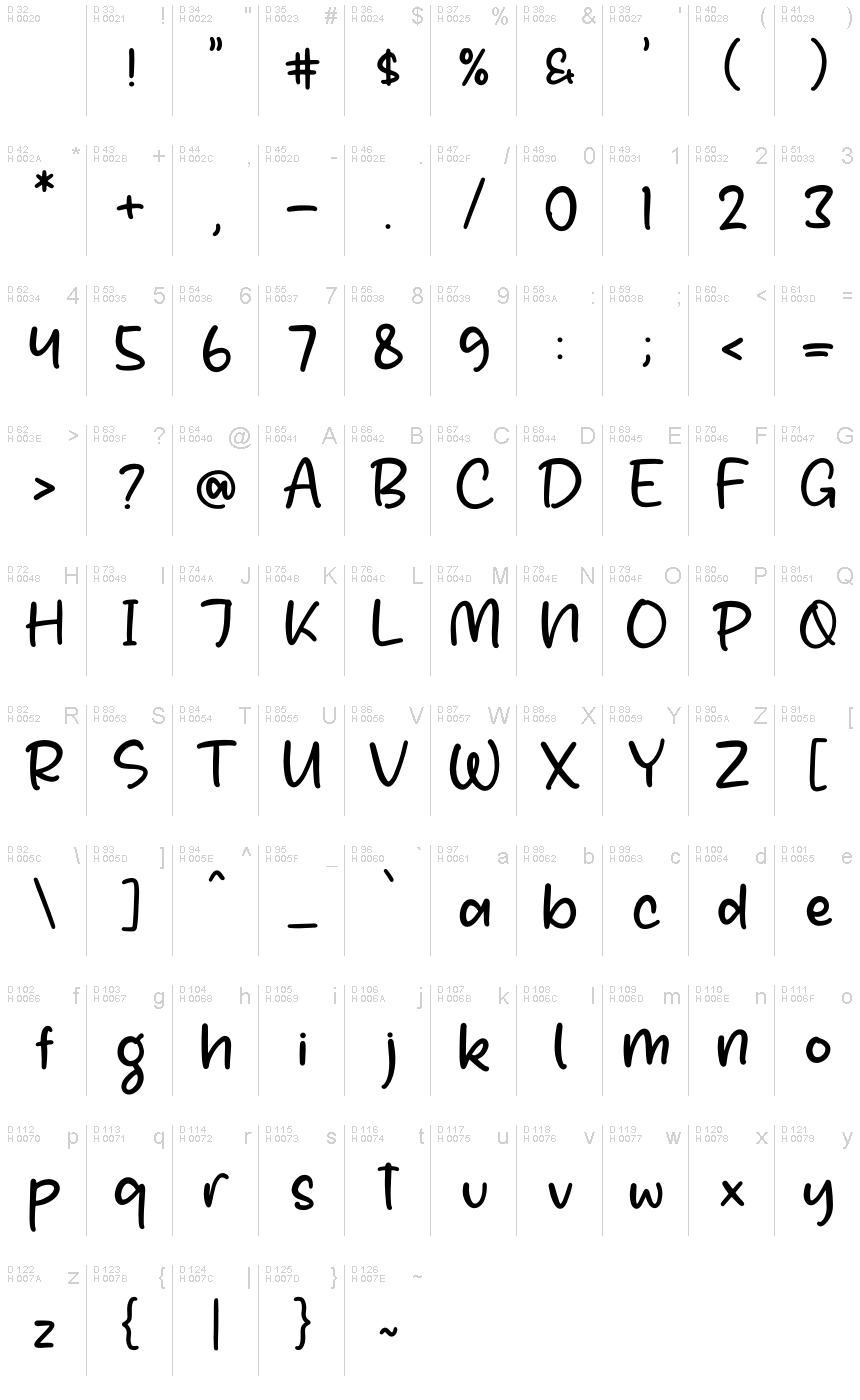
Rinkle Belle
Rinkle Belle embodies the charm of a personal touch with its handwritten style, crafted by the creative minds at Perspectype Studio and presented by Letterena.com. This font dances with a casual elegance, featuring playful curves and dynamic strokes that mimic the nuances of human penmanship. Its characters display an inviting warmth, making it ideal for designs that aim to convey intimacy and approachability.
The versatility of Rinkle Belle shines in its ability to add a handcrafted essence to various projects. It's perfectly suited for invitations, greeting cards, branding materials, and any context where a personal, bespoke feel is desired. With Rinkle Belle, designers can infuse their work with a sense of authenticity that resonates with audiences seeking the human touch in digital spaces.